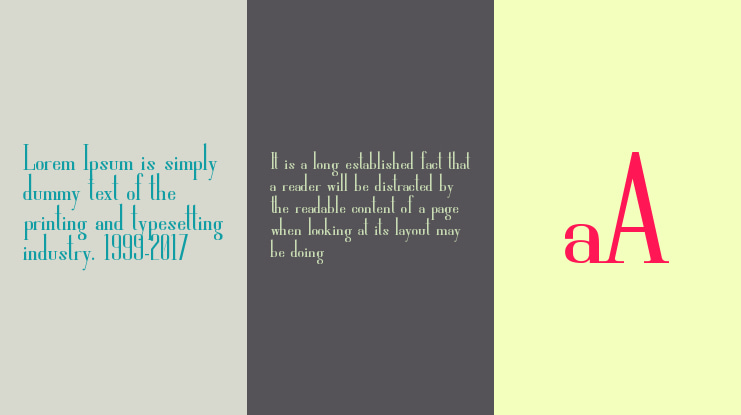
High So Serious Font
Derivative work based on Altsys Metamorphosis' (defunct) font, Edition. Characters aren't as high, & there are a bunch of special characters, £, $, , ¥ & lowercase letters. My first font experiment :)